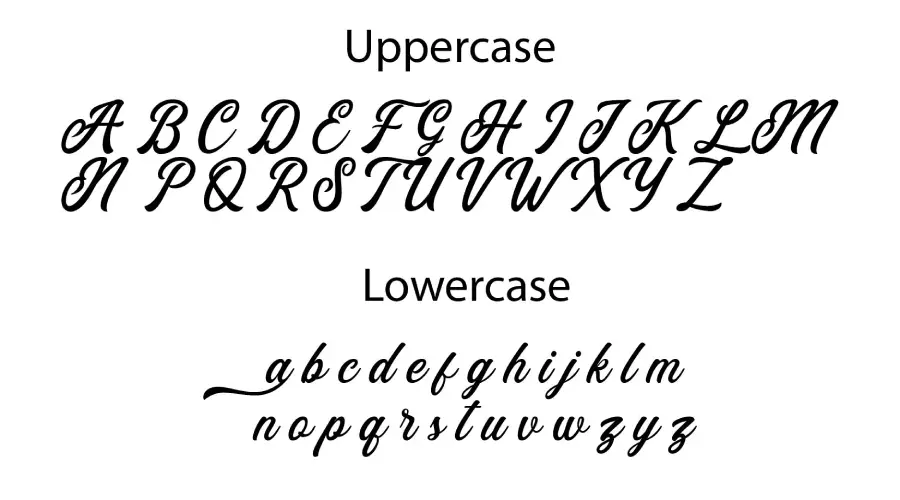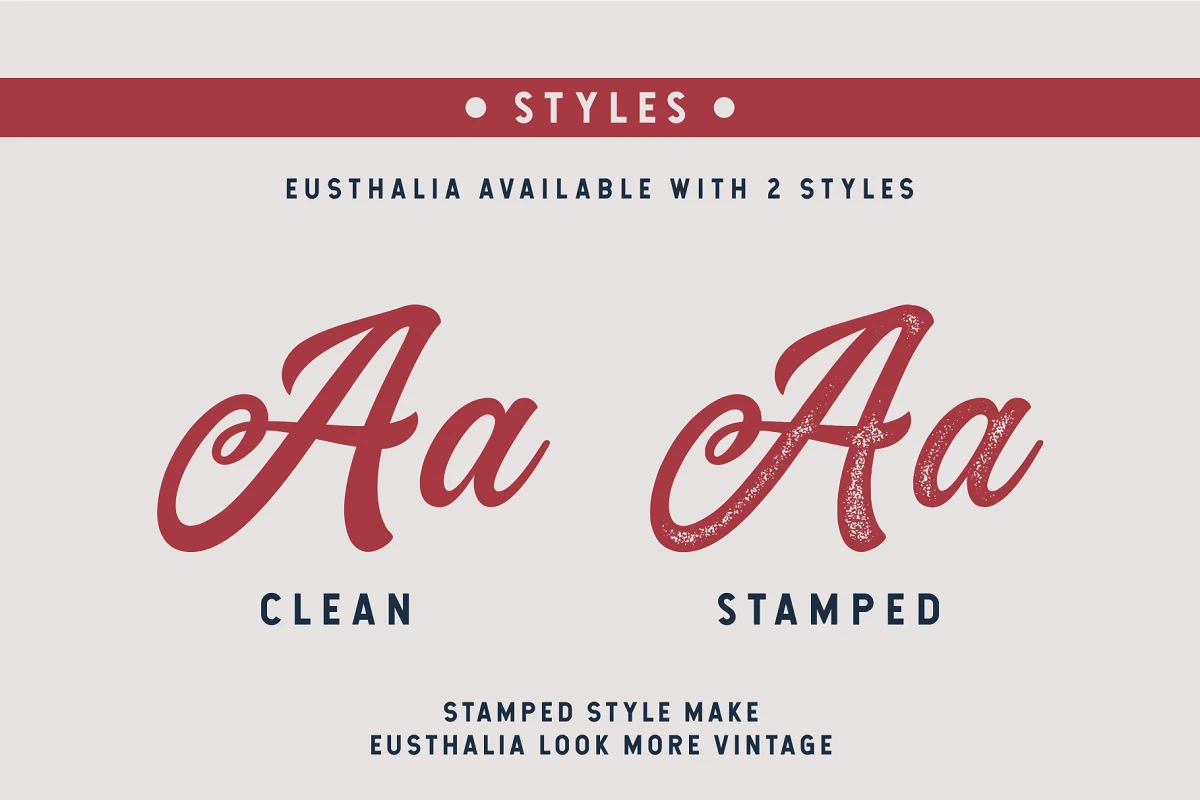
Eusthalia font is a script, and brush typeface now available. It was designed and published by Yudha Ageng. Clean and Stamped are the two styles of the font. It can be used in vintage designs using these styles. This Typeface additionally has multilingual support. Eusthalia font is a Clean Font which is a Personal Use Only font. Starting with uppercase, lowercase, Numeric, and specific Special character and alternative, fonts are available. Contextual Alternates and Stylistic Set are two Opentype features included in the font. The font was designed and published by Yudha Ageng.
Eusthalia Font is a stunning typeface that will allow you to create world-class designs with ease. The font works well with a variety of colors, but it stands out the most when used in red. Billboards for any type of cold drink company will look excellent with this typeface. Logotype, Branding Design, Logo Design, Digital Lettering Arts, T-Shirt/Apparel, Poster, Magazine, Signs, Advertising Design, and any vintage design needs are all covered by Eusthalia Typeface.